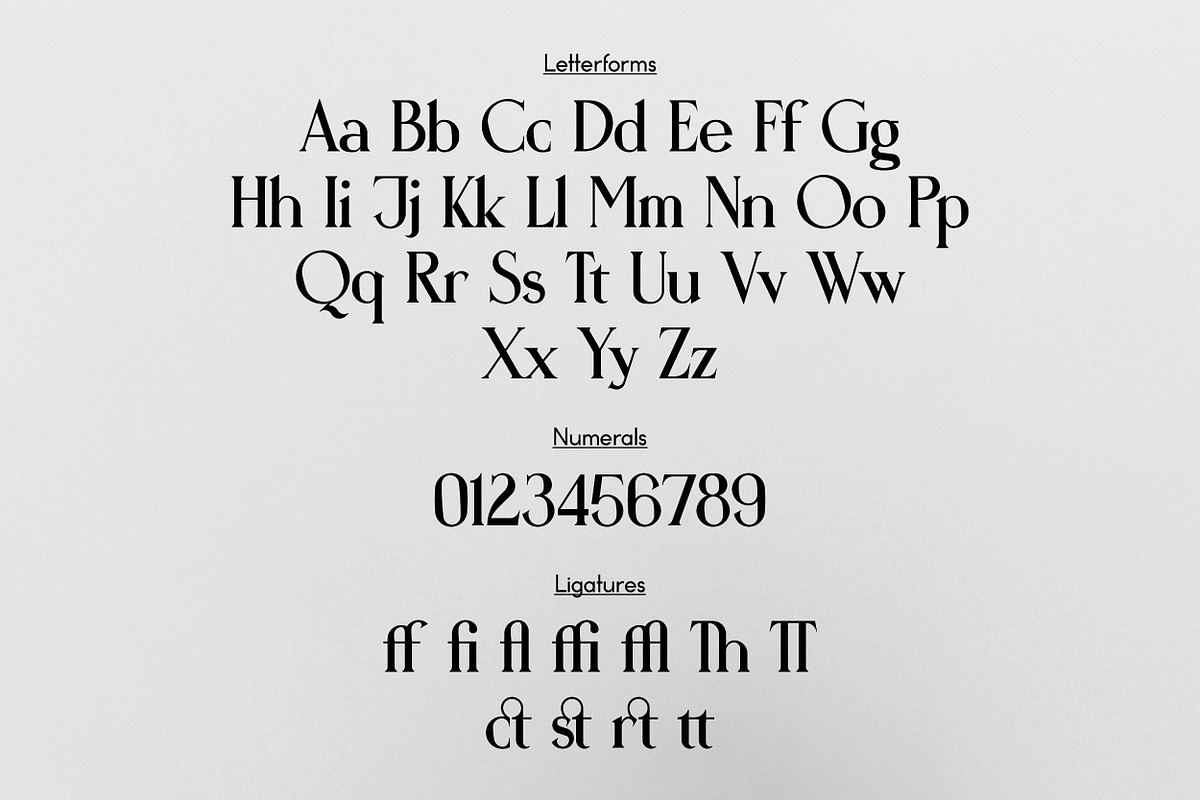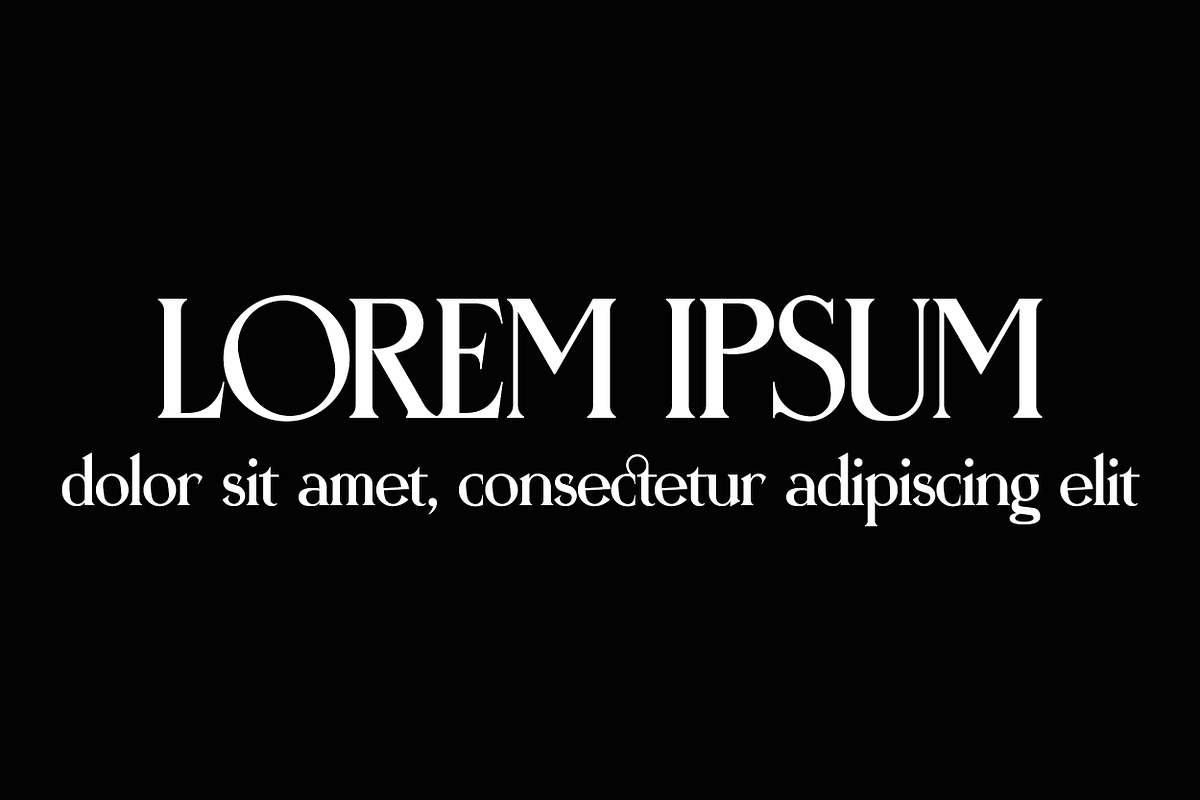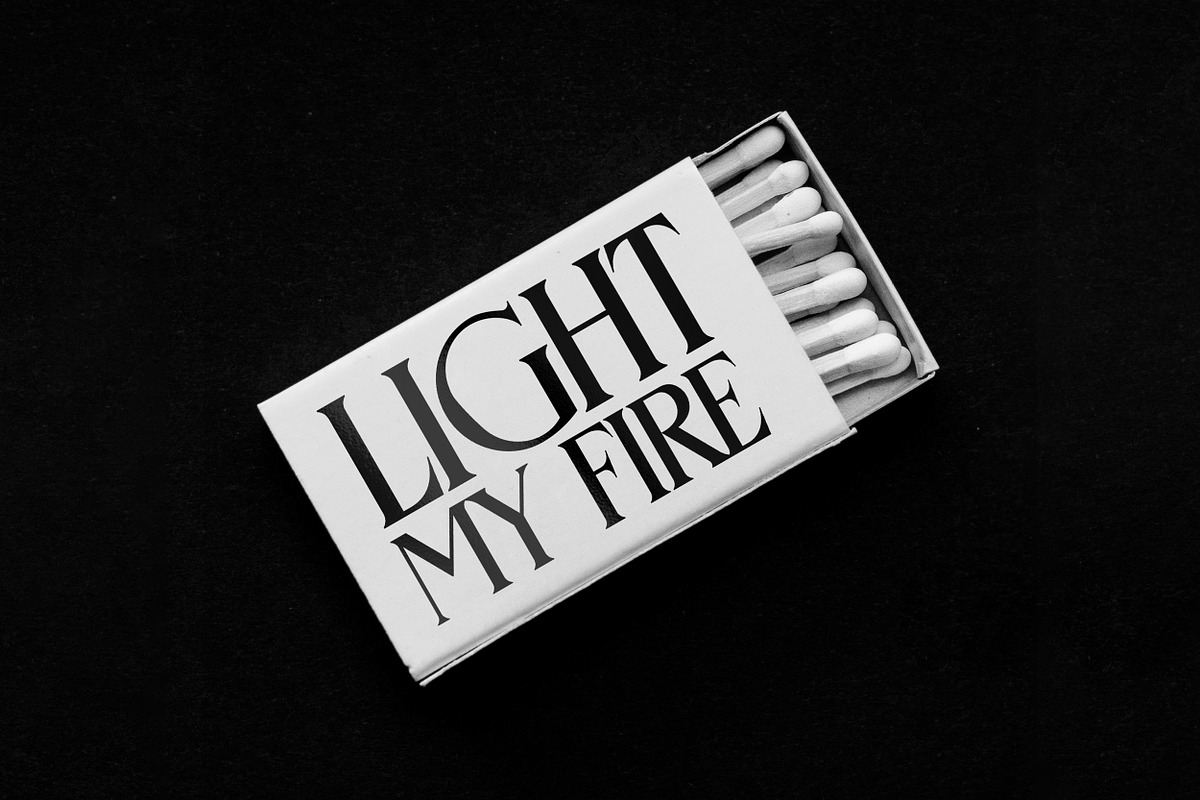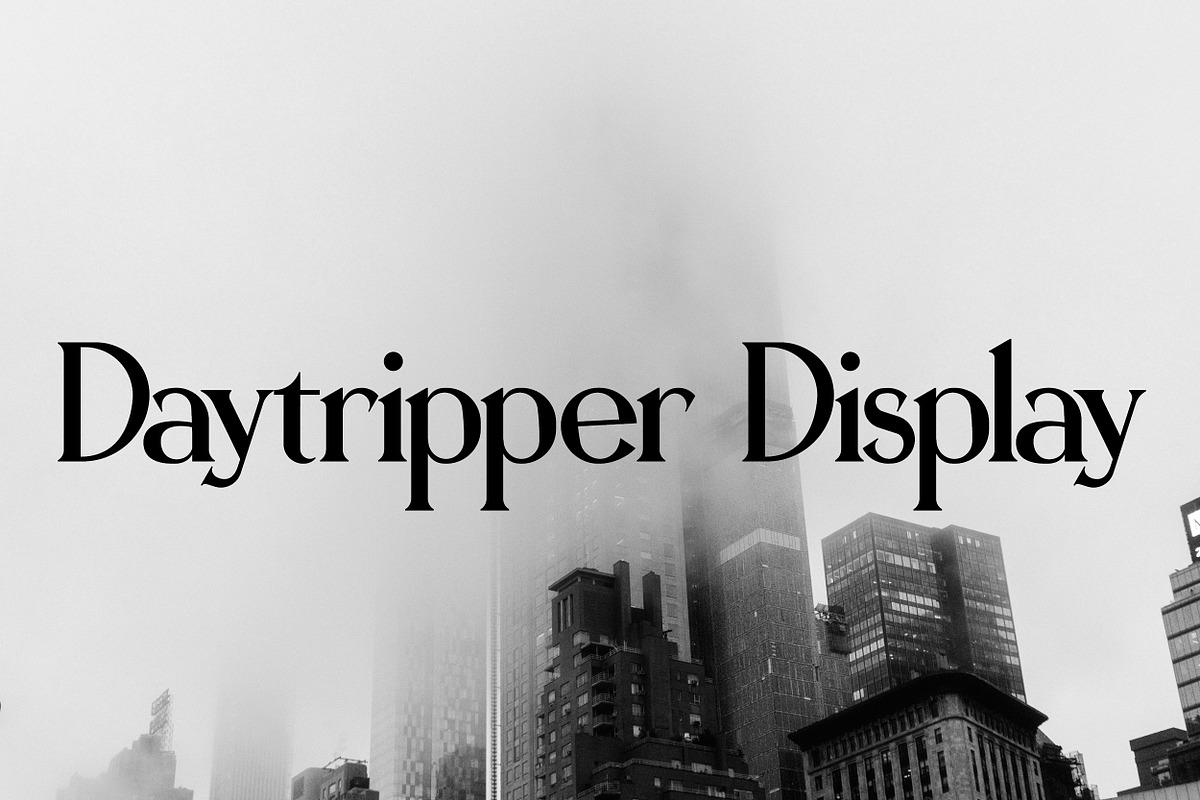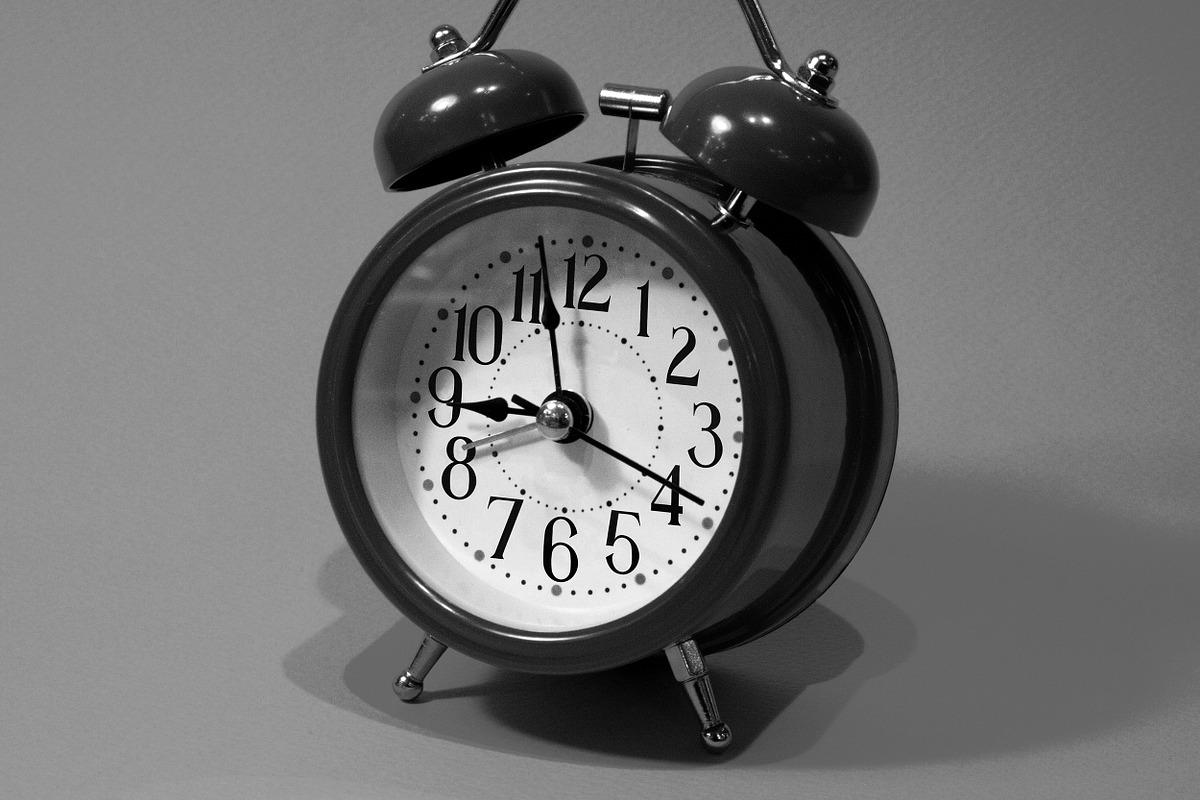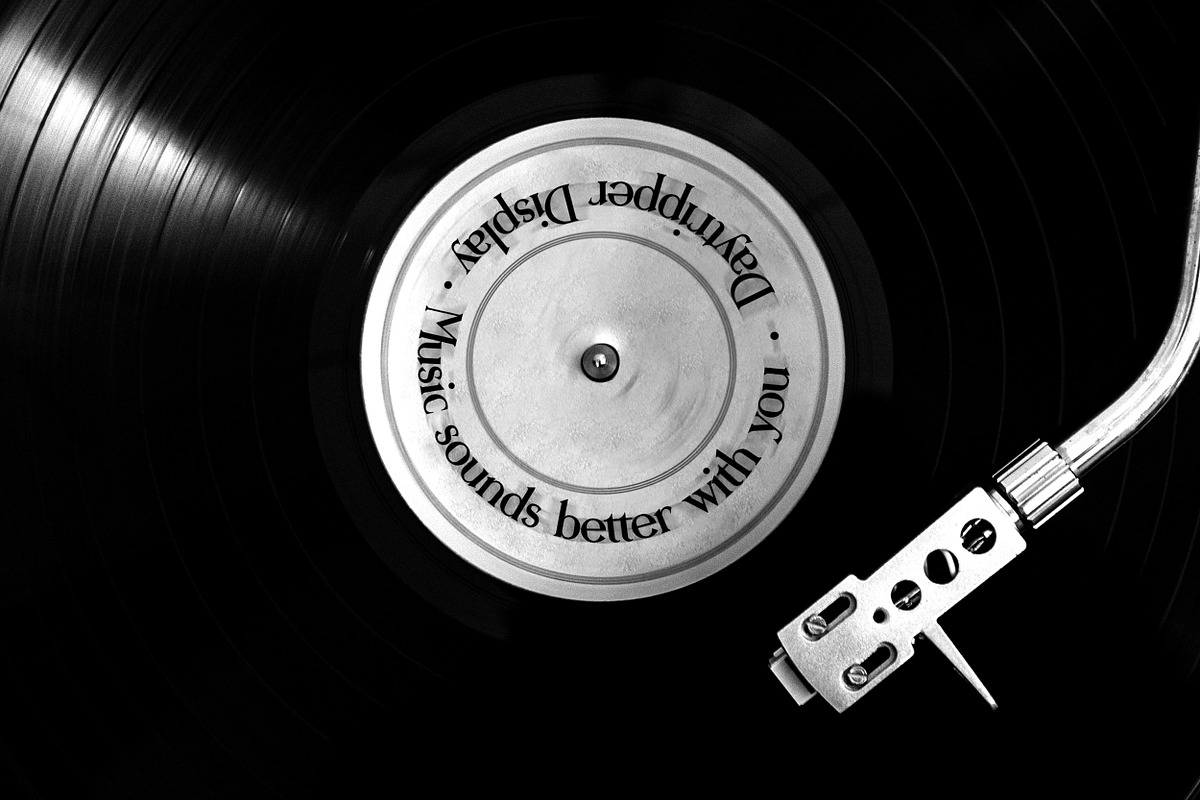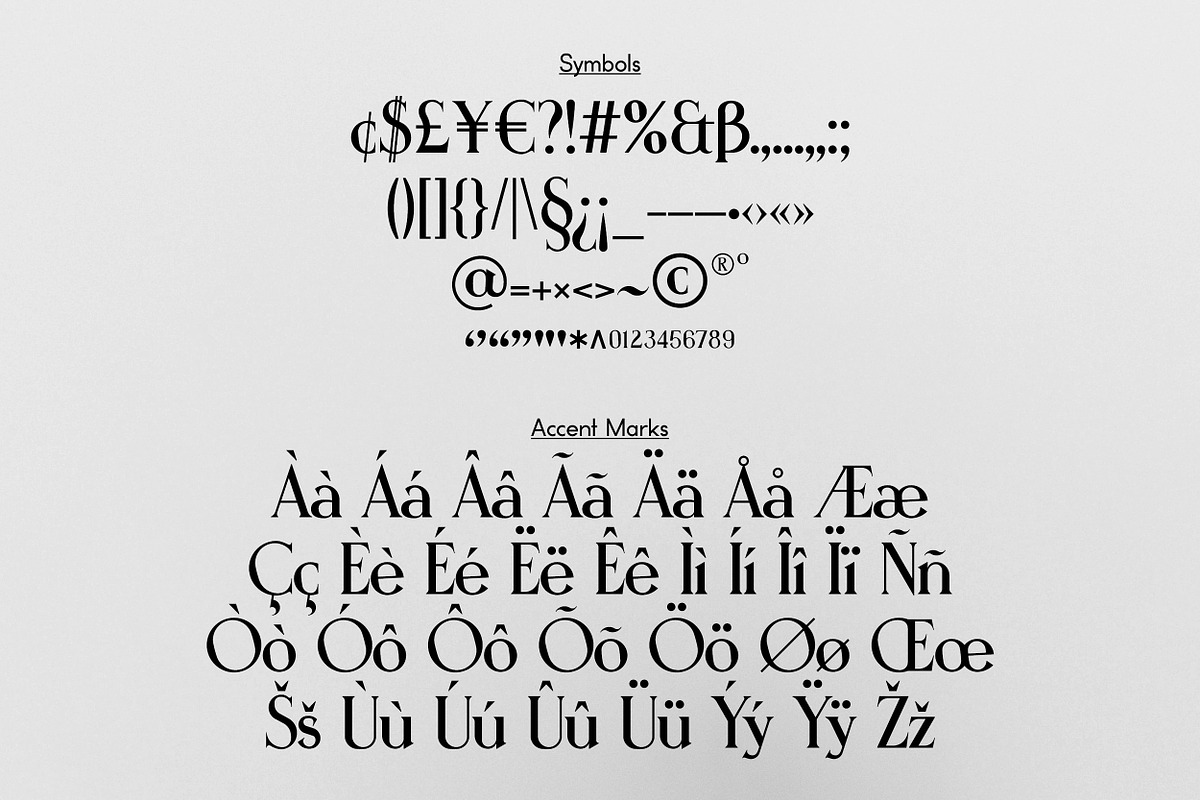
Daytripper Display | Dramatic Serif
The display typeface is a modern take on the classics. While paying tribute to old-style type sensibilities, Daytripper Display takes serif type characteristics and leans in on drama and bravado with heavy contrast in stroke widths, and pin-sharp ends. Daytripper Display emphasizes elegance and grace; ideal for loud and proud headlining.
The typeface contains approx. 206 glyphs, including:
- Capital letters
- Lowercase letters
- Accent Marks (Uppercase and Lowercase)